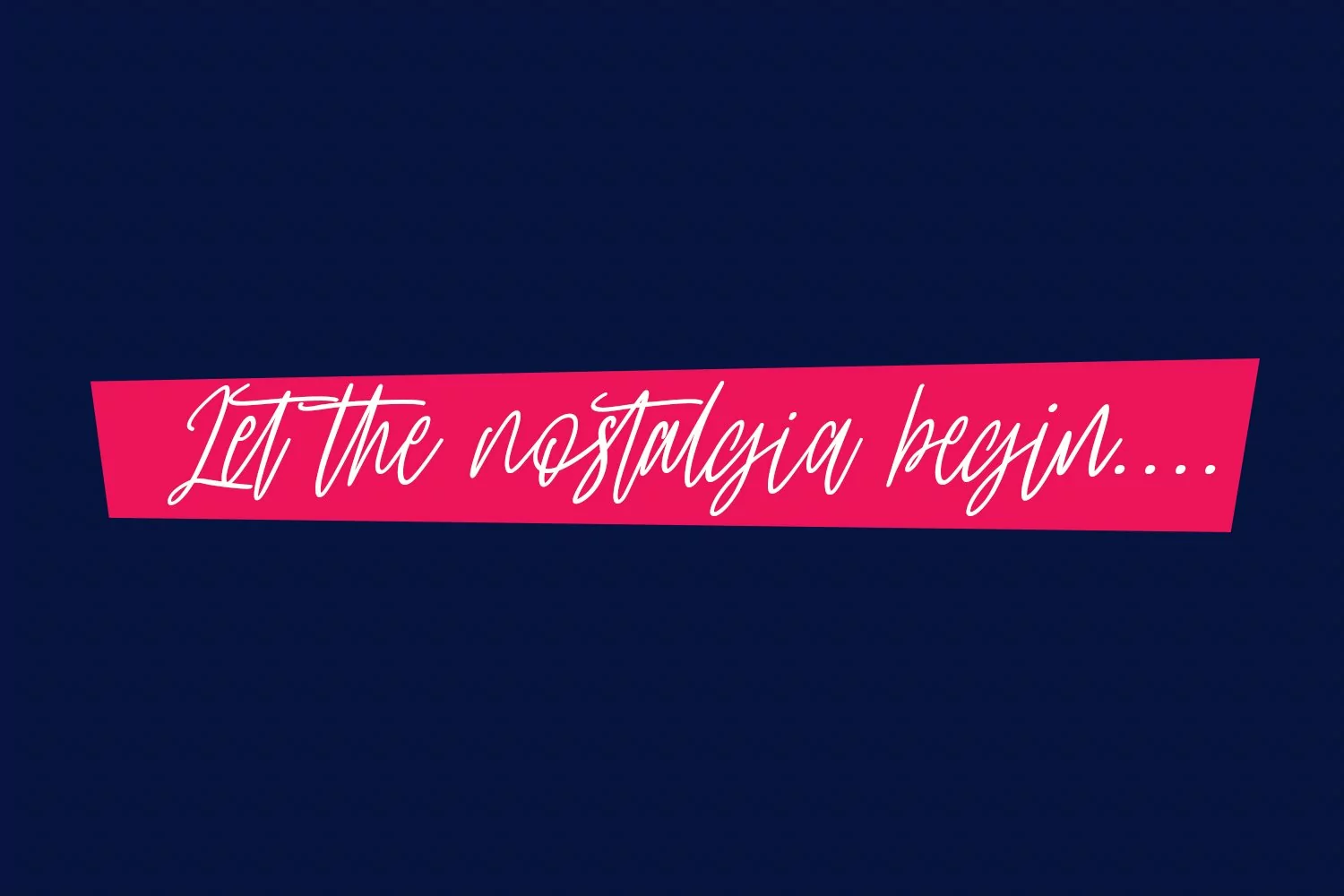
Taptalks is a slanted casual script font. With lights contrast stroke, fun character with many of natural ligatures. To give you an extra creative work. Taptalks font support multilingual more than 100+ language. This font is good for logo design, Social media, Movie Titles, Books Titles, a short text even a long text letter and good for your secondary text font with sans or serif. Make a stunning work with Taptalks font.